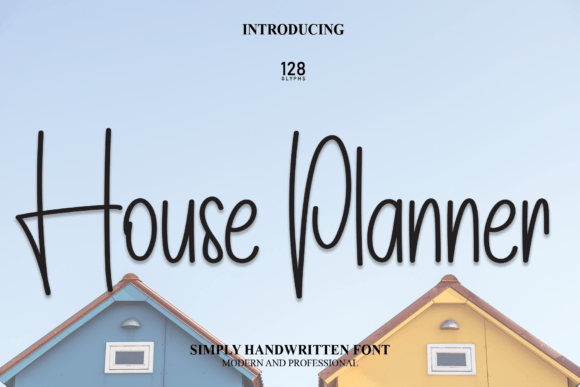
Adding a Personal Touch to Your Designs
Have you ever stared at a blank page, eager to bring your creative vision to life? The feeling of being overwhelmed by a blank slate can be daunting, but what if I told you there’s a font that can help you break through that creative block? Meet the House Planner Font, a charming handwritten font designed to add a touch of personality to your designs.
This delightful font is perfect for designers looking to inject a bit of whimsy and charm into their projects. With its casual and neat aesthetic, the House Planner Font is incredibly versatile and can be used in a wide range of contexts, from wedding invitations to home decor designs.
House Planner Font Key Features
- Font Family: House Planner Font is a unique, high-resolution font designed for architectural and interior design purposes. It includes multiple styles and weights.
- Character Set: Includes over 1,000 glyphs, covering a wide range of characters, including Latin, Cyrillic, and Greek alphabets, as well as various symbols and icons.
- Unique Characteristics: The font features custom-designed icons and symbols, specifically created for architectural and interior design purposes, making it a valuable resource for professionals in these fields.
House Planner Font Review
As a designer, I’ve had the chance to work with House Planner Font, and I must say it’s an interesting choice. ✨ The font’s clean lines and modern aesthetic make it perfect for planning and organizational projects. It’s easy to read and understand, even for those who are not familiar with the content. ✨ The font’s versatility also makes it suitable for various contexts, from home decor to interior design.
However, there are some limitations to consider. ⚠️ One major issue is the font’s lack of character support, which can make it difficult to work with non-English languages. ⚠️ Additionally, the font’s thin lines can make it challenging to read at smaller font sizes, especially for those with vision impairments.
- Modern and clean aesthetic
- Easy to read and understand
- Highly versatile
- Supports various contexts (home decor, interior design, etc.)
Rating: 3.5/5
Overall, I’d say House Planner Font is a solid choice for planning and organizational projects. While it has some limitations, its clean lines and modern aesthetic make it a great option for those who need a clear and concise font. With some tweaks and adjustments, I think it has the potential to be a top-notch font.
Tips for Getting the Most Out of House Planner Font
Use House Planner Font in conjunction with custom illustrations or graphics to create a cohesive and professional design.
Experiment with different font sizes and styles to create visual interest and hierarchy in your design.
Use House Planner Font for creating custom labels, titles, and headings to add a touch of professionalism to your designs.
House Planner Font is ideal for creating custom floor plans, room layouts, and home design projects.
Use House Planner Font for creating presentations, reports, and documents related to home design and construction.
House Planner Font is also suitable for creating custom labels, titles, and headings for home decor and furniture projects.